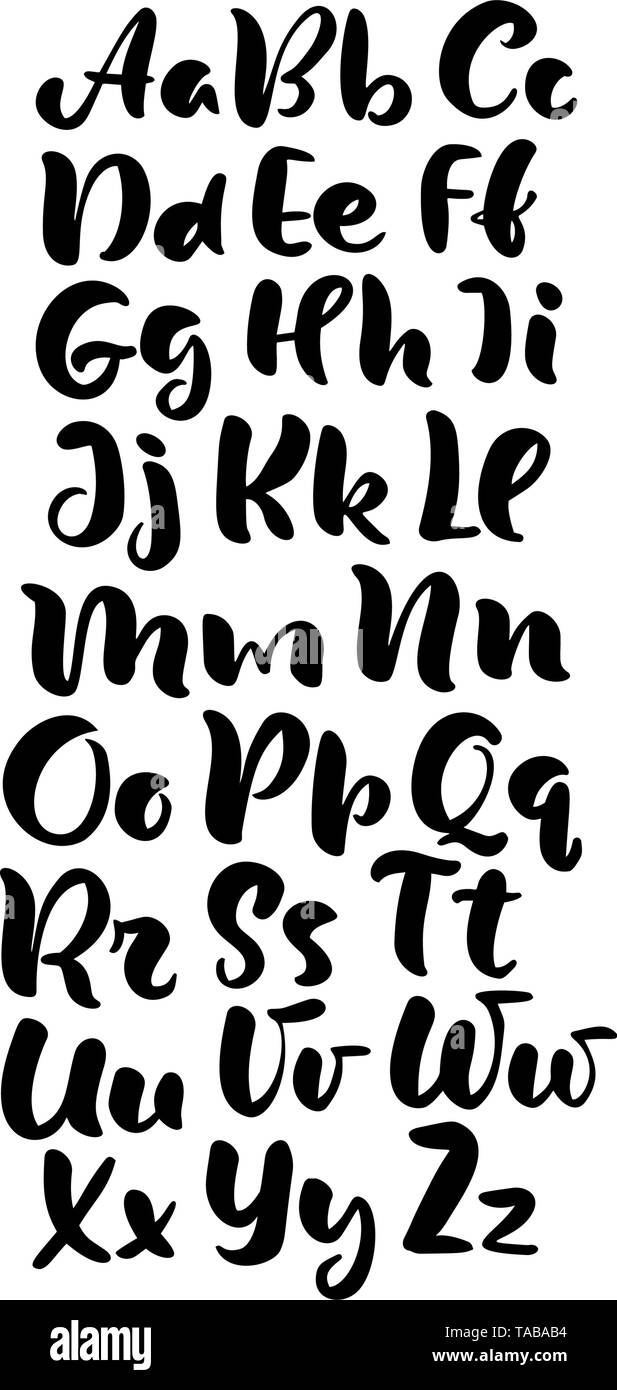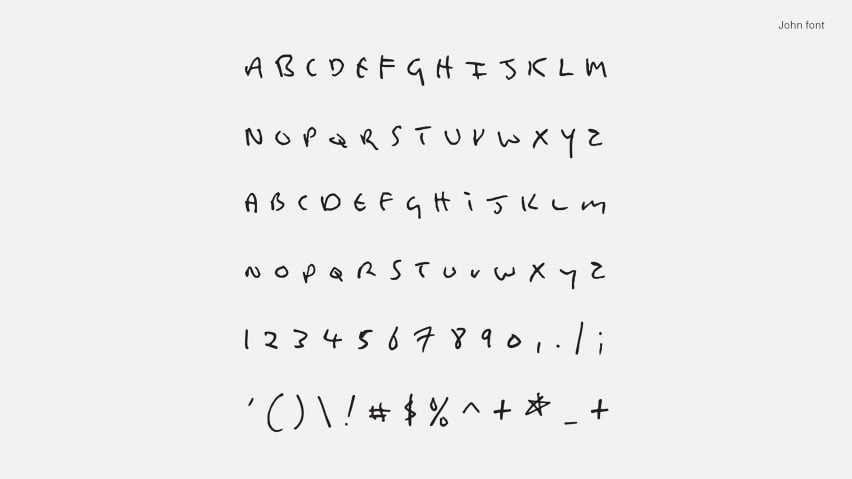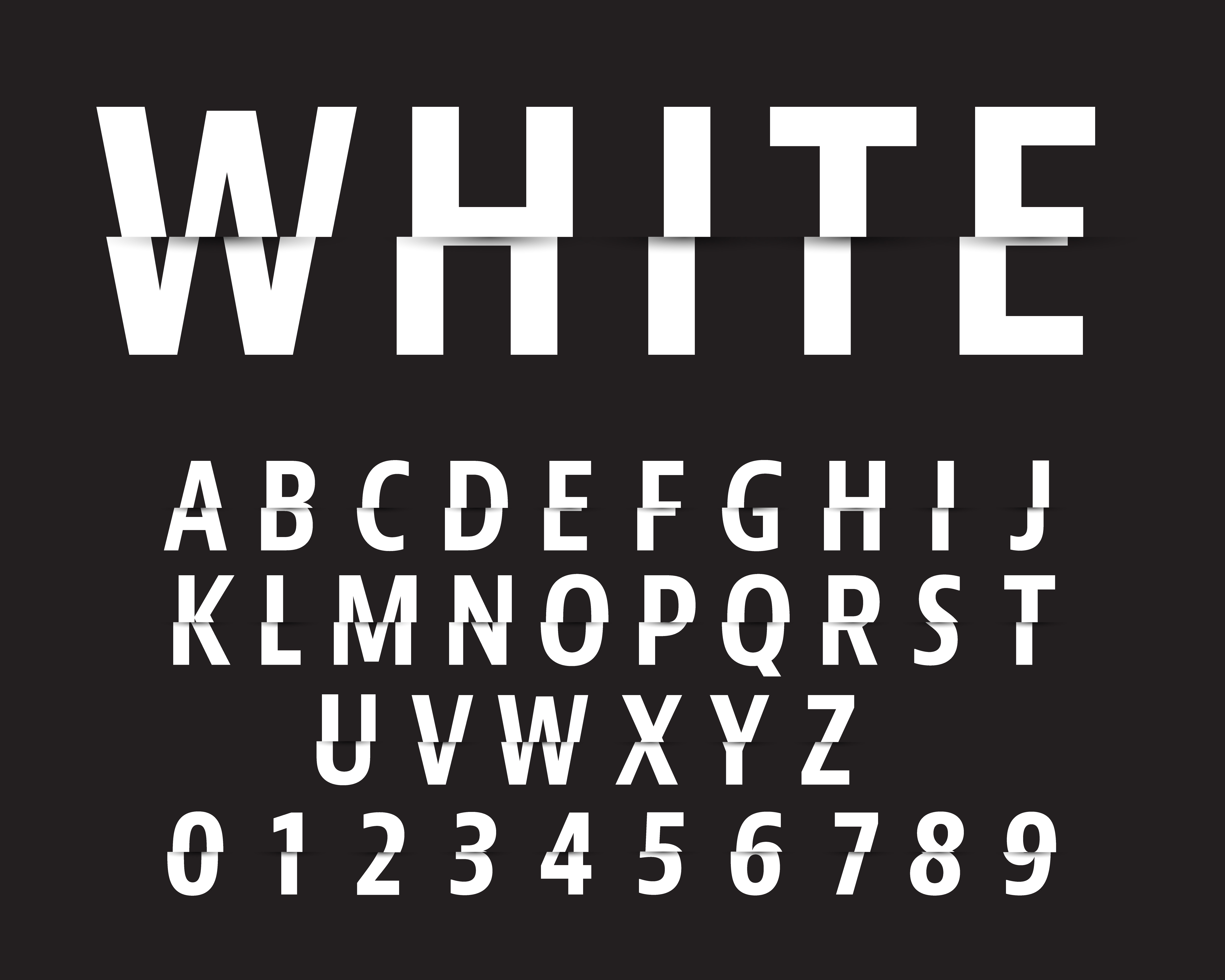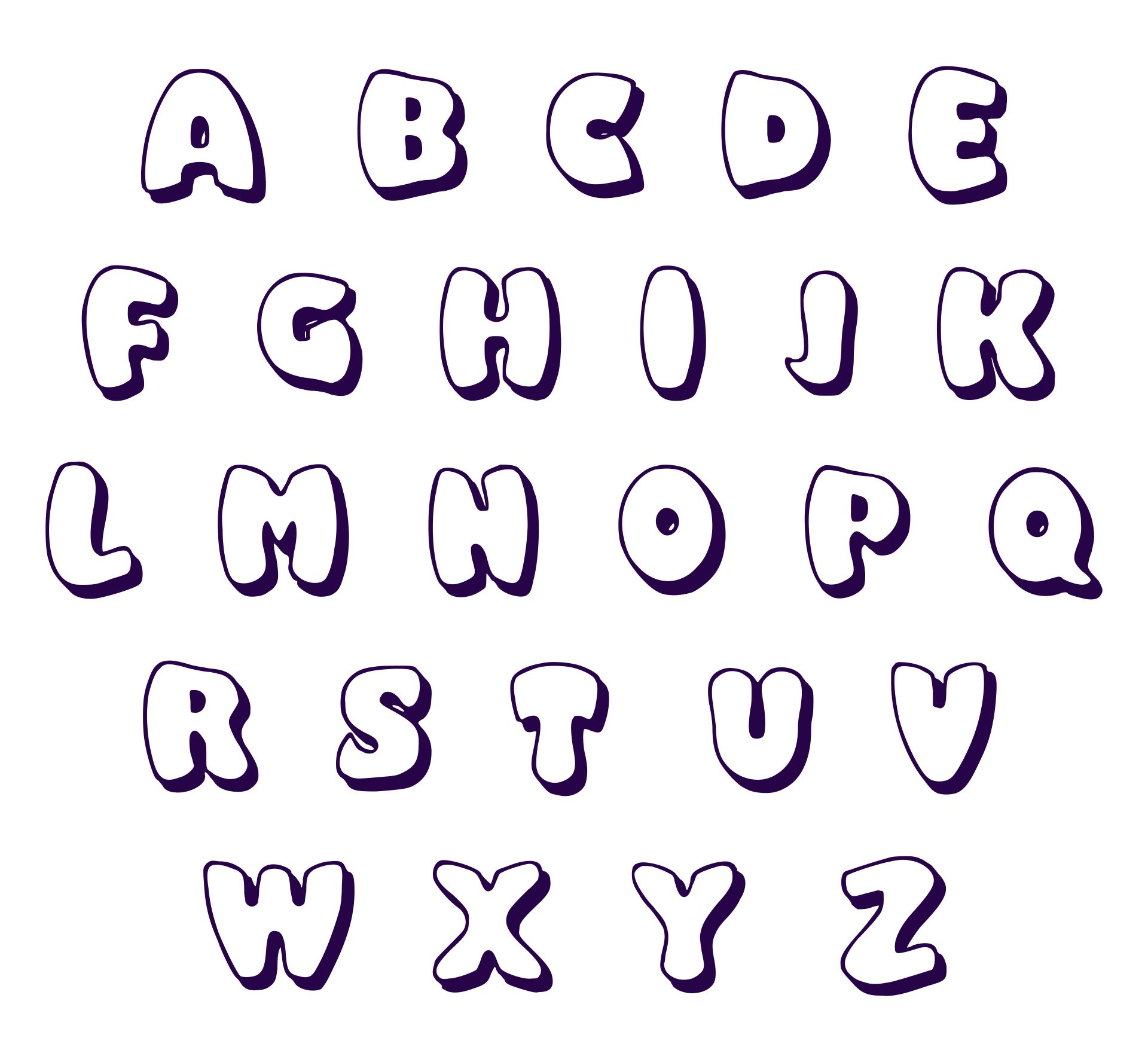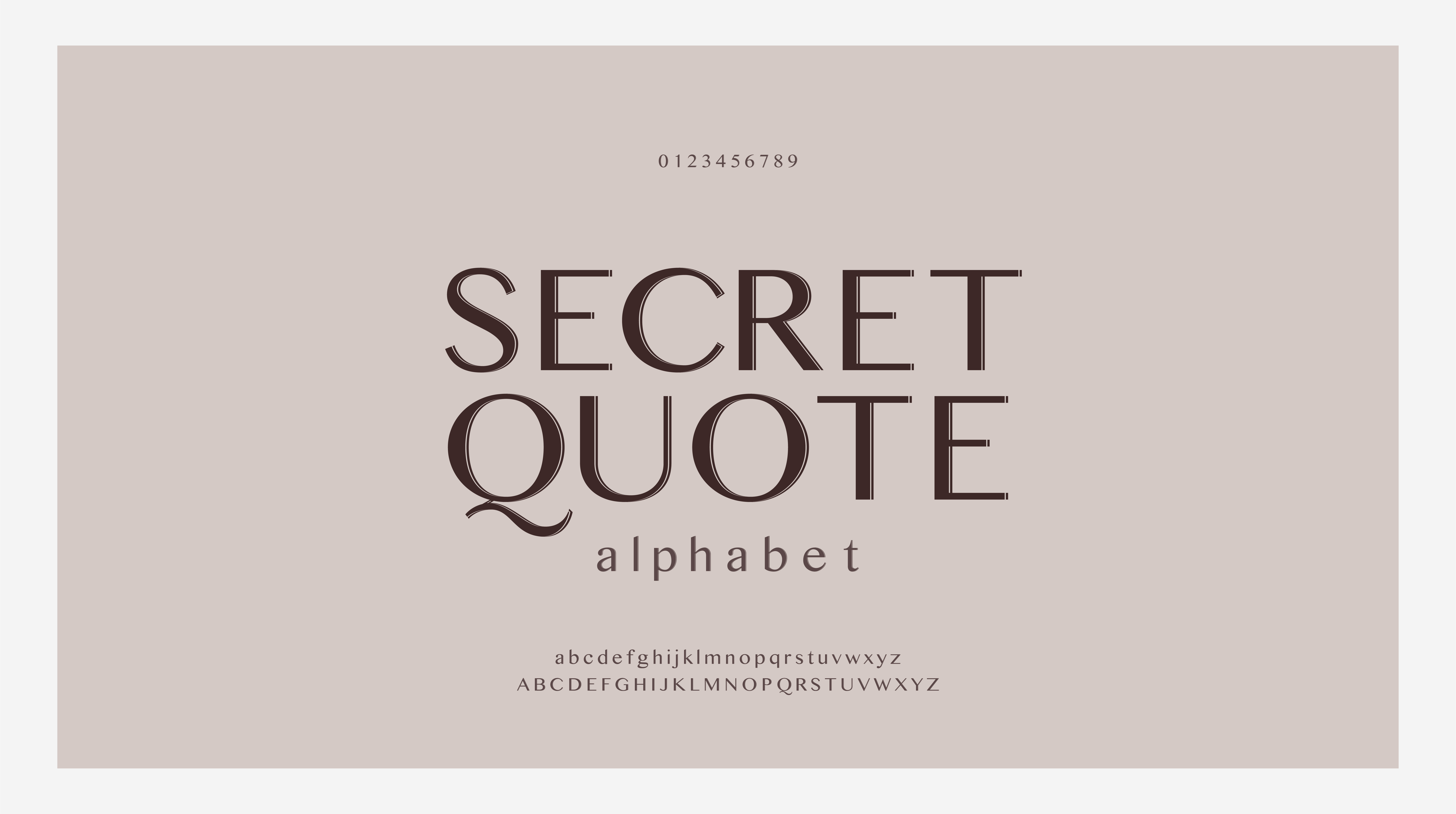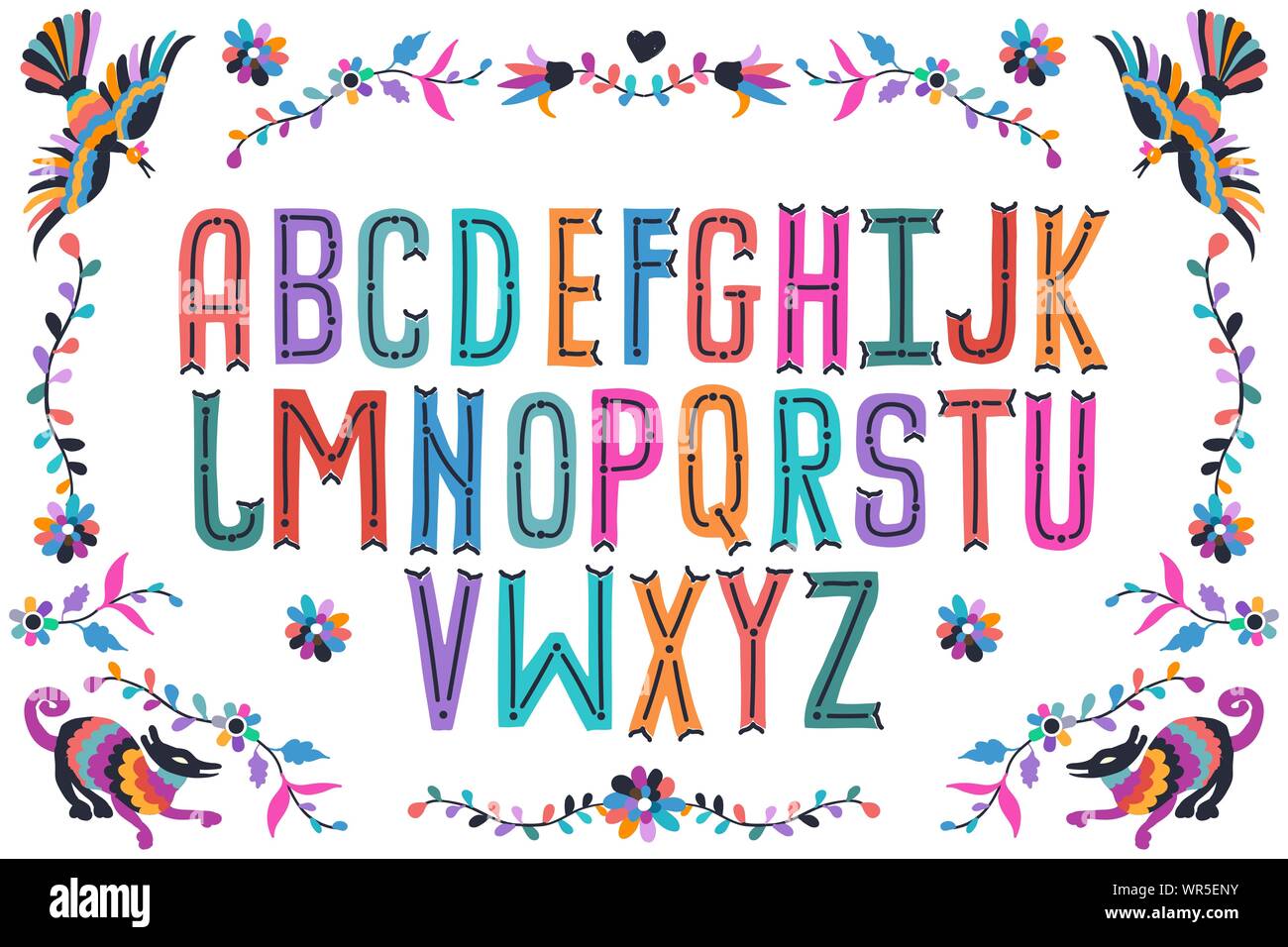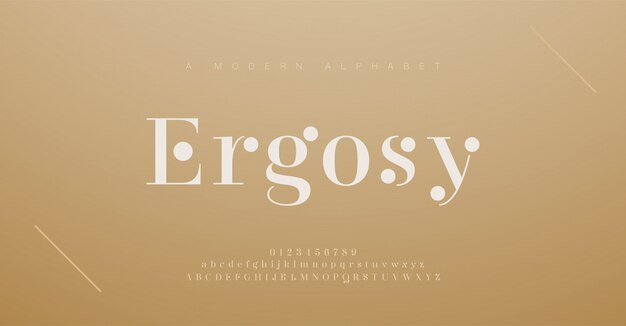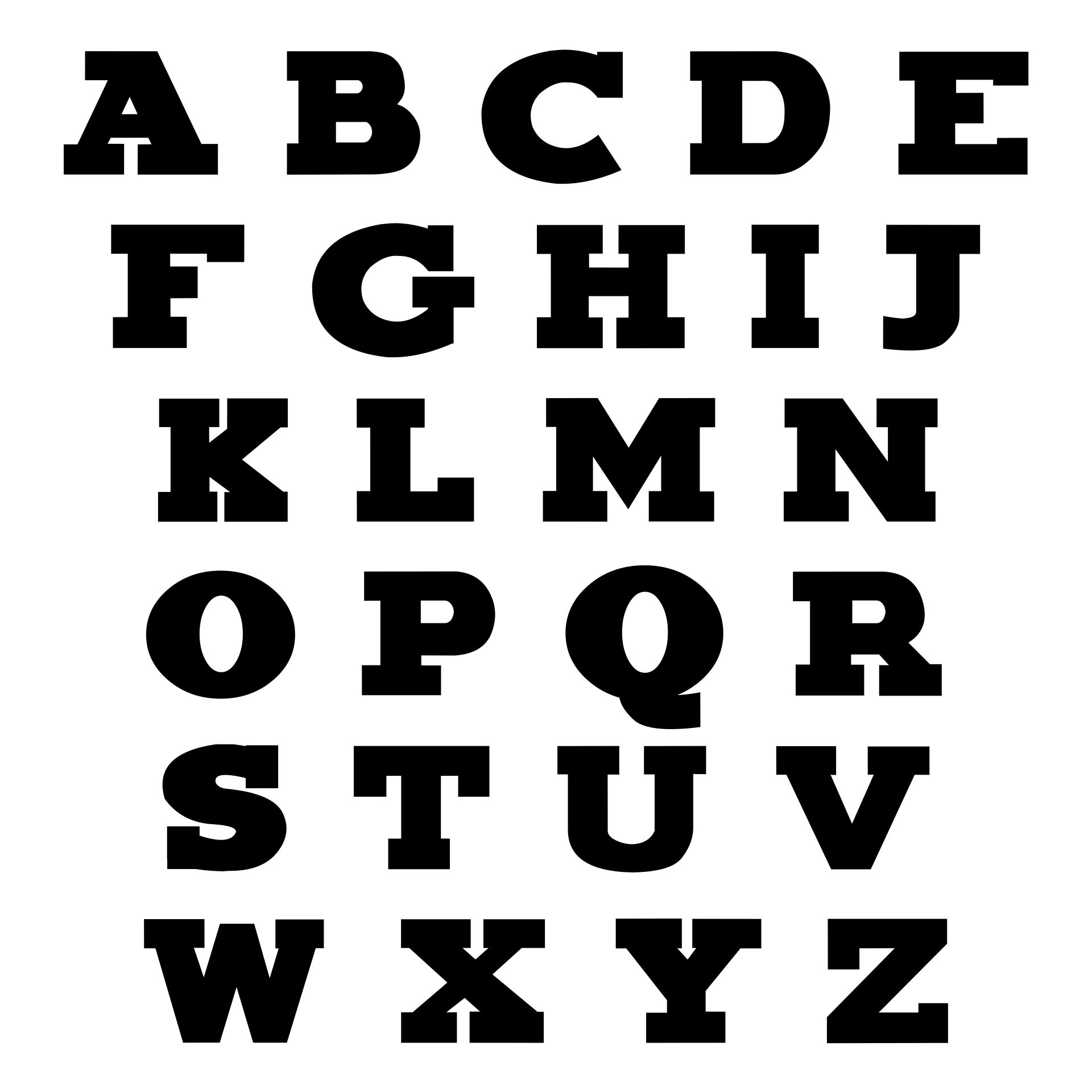
Lower case letters are 5-10 stitches. Thats where I hope this comes in handy.
Schoolhouse cross stitch alphabet font pattern This pattern includes a complete font with upper and lowercase letters.
Lettering fonts style alphabet design. This is a digital product pdf Upper case letters are 10-14 stitches in height. Some of the fonts are quite close to the normal alphabet - for example the cursive ones the monospace ones the bold and italic ones. The full a-z alphabets and numbers for each of the fancy symbol fonts above are too big to copy here but Ill paste a couple here to show you.
This allows you to give character and a personality to your designs without having to go through the trouble of drawing letters one at a time. Without tails this lettering style looks modern and clean. The regular style has unique angles in an elongated style making it more unique than most other condensed fonts.
Add this beautiful display font to your every creative idea. Any lettering without serifs is categorized as being in the sans serif style. Its casual charm makes it look very down to earth easy to read and in the end very versatile.
Cursive fonts can include many different styles from Vivaldi to Freestyle Script to French Script. The cursive font style works very well in displaying clean rows.